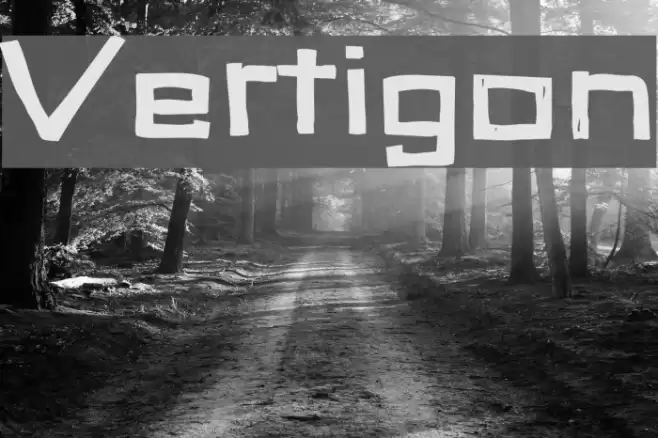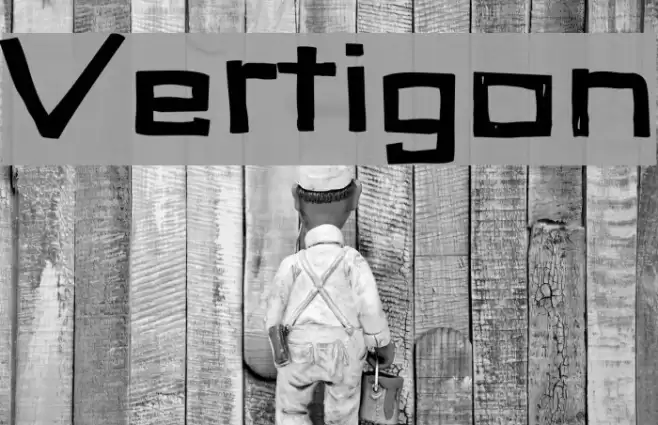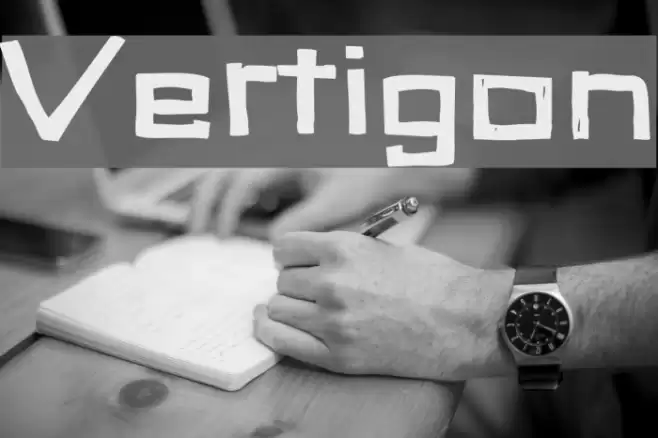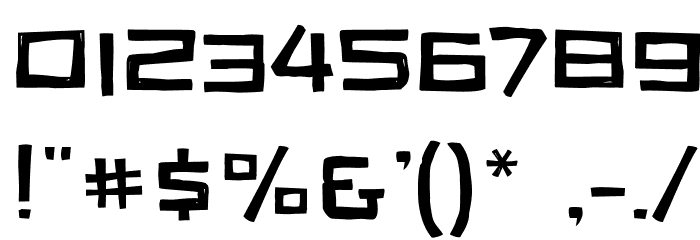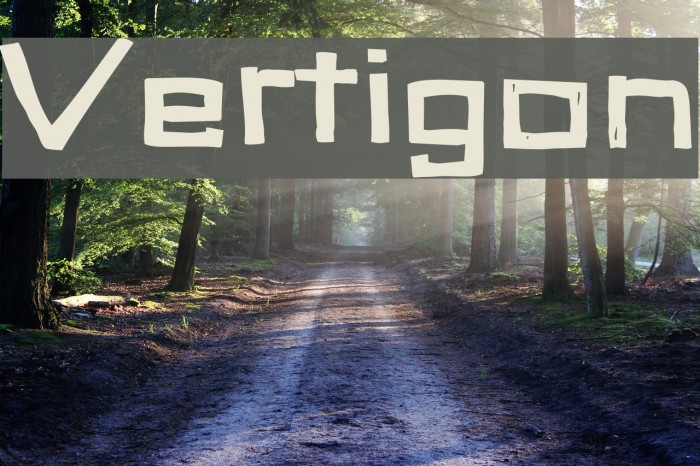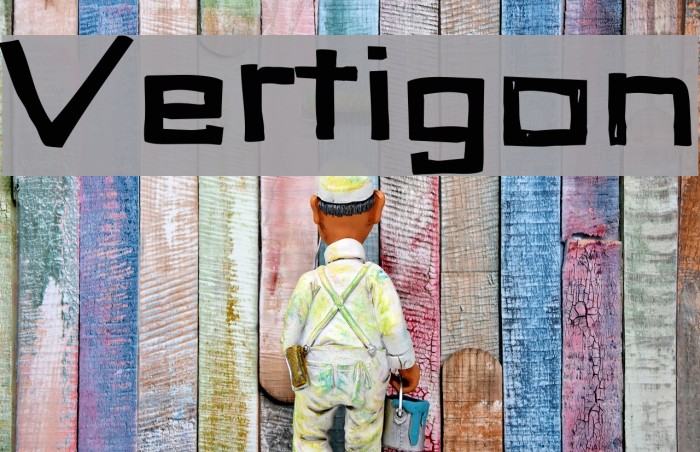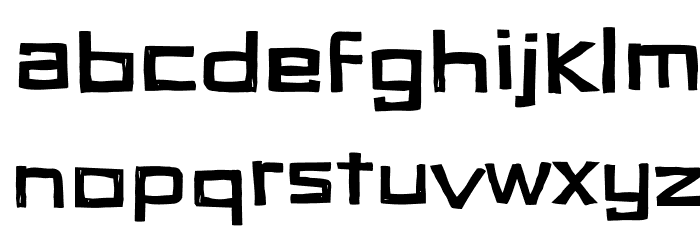
Vertigon Font
Vertigon Description
This font exhibits a bold and dynamic style, characterized by its thick, uneven strokes and slightly irregular shapes, giving it a hand-drawn, artistic feel. The uppercase and lowercase letters maintain a consistent height, contributing to a cohesive appearance. The numerals and special characters follow the same design principles, ensuring uniformity across all glyphs. The font's unique, sketch-like quality makes it stand out, while its legibility remains intact. This combination of boldness and artistic flair makes it suitable for creative and expressive design projects.
A bold, hand-drawn style font with thick, uneven strokes and artistic flair from Cartoon fonts.
- Proposed Projects: Ideal for posters, album covers, branding, and any project requiring a creative, artistic touch.
- Overall Style: Artistic, Hand-drawn